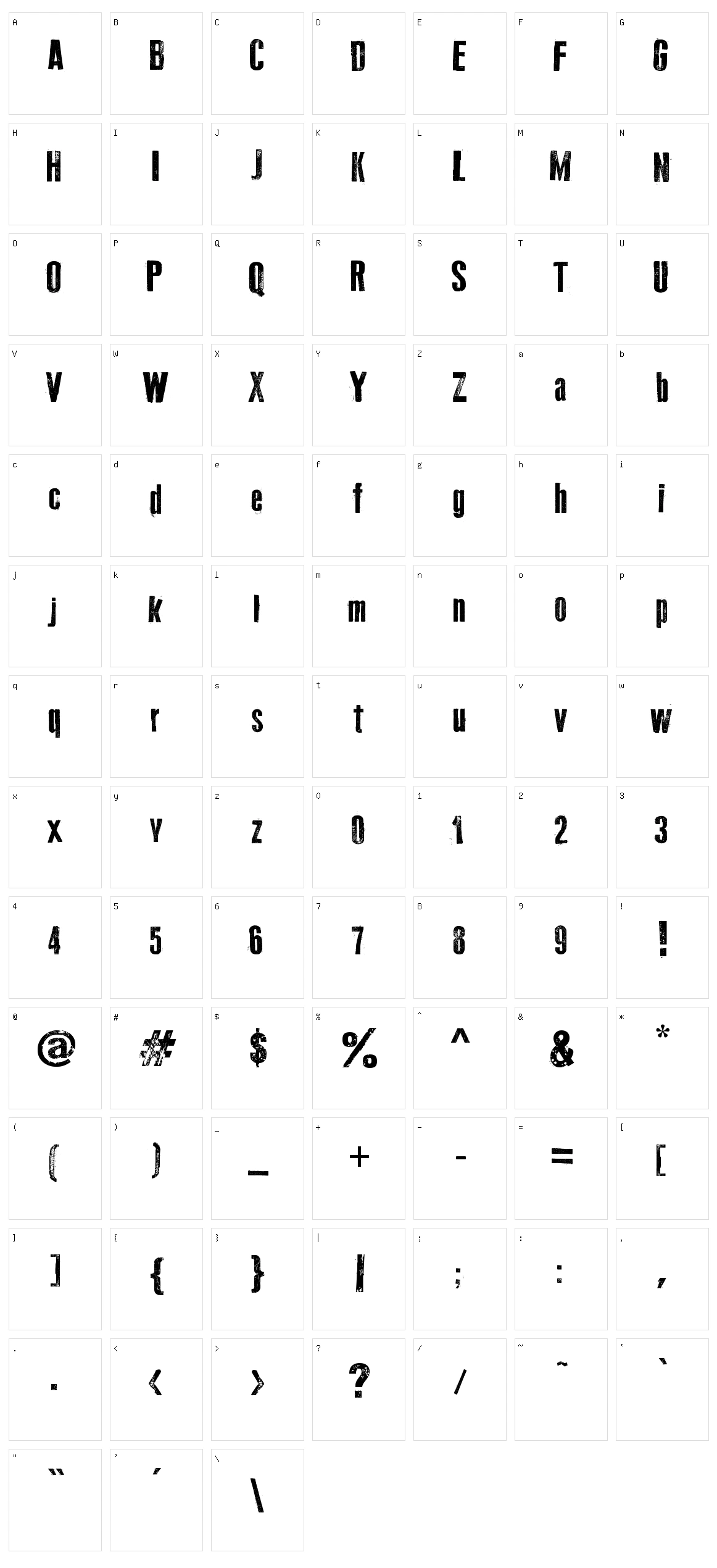
The free font Old Typography is carefully designed by Galdino Otten Fonts, showcasing a thoughtful balance of creativity and usability and falls under the Eroded font style. When you download the ZIP file, it contains only 282.69 KB of font files, making it lightweight and quick to download. Please review the license details below to understand permitted usage and distribution rights. If license information is not available, we recommend using this font for personal projects only or contacting the author directly for commercial usage permissions.